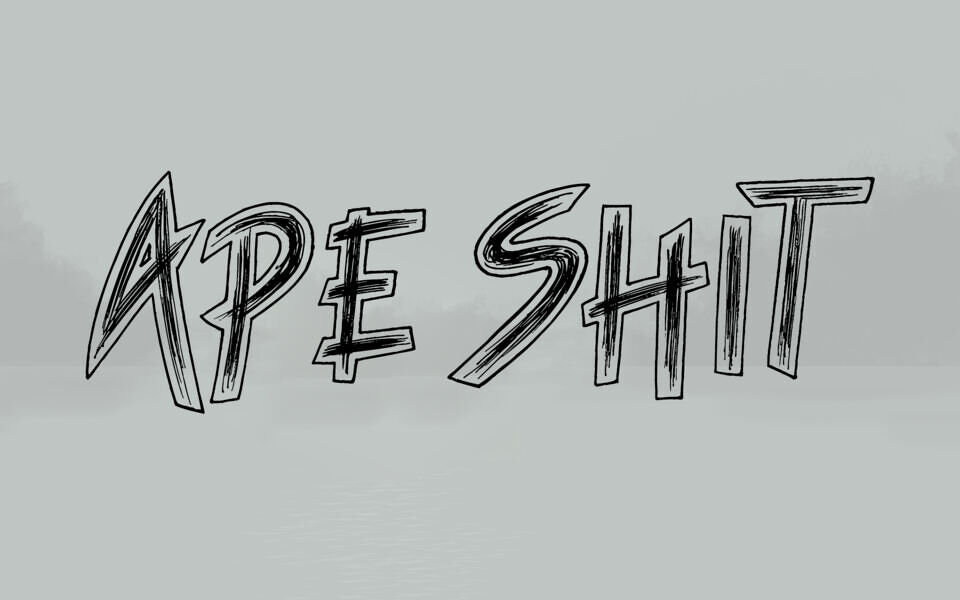
Ape Shit Font
Ape Shit is a rugged, hand-sketched display font by Jonathan S. Harris of JSH Creates, boasting bold, jagged strokes and irregular outlines for a raw, energetic feel. Its all-uppercase letters (A-Z) and numerals (0-9) mimic graffiti or comic artistry, with sharp angles and brush-like texture evoking primal chaos—ideal for edgy headlines, posters, logos, or urban branding.